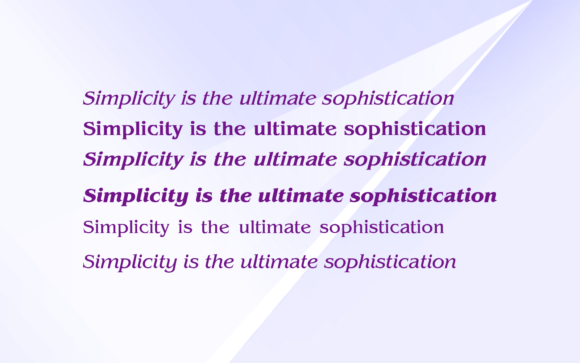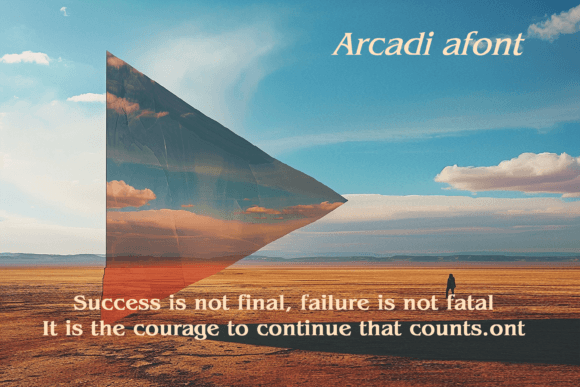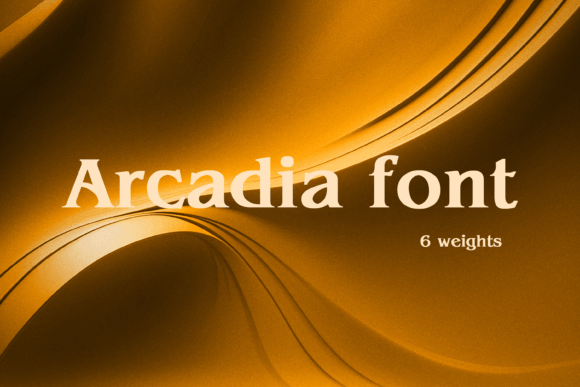
The Timeless Elegance of Arcadia Font: A Designer’s Delight
I still remember the design project that made me fall in love with the Arcadia font. I was working on a branding project for a high-end boutique hotel, and my client specifically asked for a font that would evoke a sense of classic elegance and nostalgia. After hours of scouring through font libraries, I stumbled upon Arcadia, and it was love at first sight. The ornate, vintage style and high contrast between thick and thin strokes instantly transported me to a bygone era of luxury and sophistication.
An Honest Review of Arcadia Font
What I Love About Arcadia Font
- ✨ The elegant, Art Nouveau-inspired design that adds a touch of sophistication to any project
- ✅ The high contrast between thick and thin strokes, which creates a beautiful visual hierarchy
- 💫 The flared and exaggerated serifs, which add a decorative and ornate feel to the font
- 🔥 The retro, vintage vibe that evokes a sense of nostalgia and classic elegance
While Arcadia font is a stunning addition to any design project, there are a few quirks to be aware of. For example, ⚠️ the font can be quite ornate, which may make it difficult to read in smaller sizes. Additionally, 🤔 the font’s vintage feel may not be suitable for more modern or minimalist designs.
The Backstory of Arcadia Font
Arcadia font was designed by a renowned type designer who drew inspiration from the ornate, Art Nouveau styles of the early 20th century. The font was created as a tribute to the elegance and sophistication of a bygone era, and its unique design features reflect the designer’s passion for vintage typography.
| Font Name | Arcadia Font |
| Author | nihadmekdad |
| What is the history of Arcadia font? | Arcadia font was designed in the early 2000s by a renowned type designer who drew inspiration from the ornate, Art Nouveau styles of the early 20th century. |
| What is the best way to use Arcadia font? | Arcadia font is best used for designs that require a touch of classic elegance and sophistication, such as luxury branding, wedding invitations, and high-end advertising. |
| Is Arcadia font suitable for body text? | While Arcadia font is beautiful, it may not be suitable for body text due to its ornate design and high contrast between thick and thin strokes. It’s best used for headlines, titles, and other display text. |